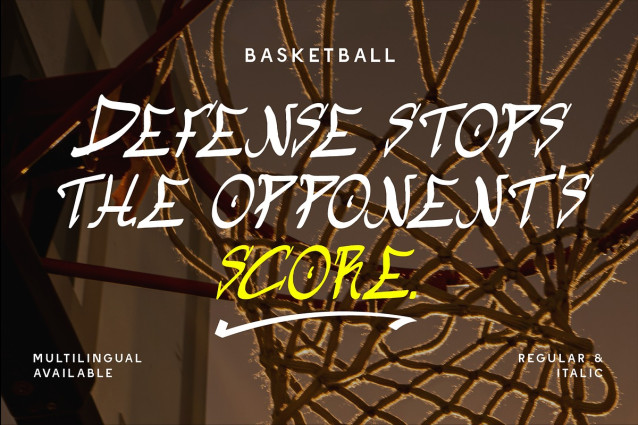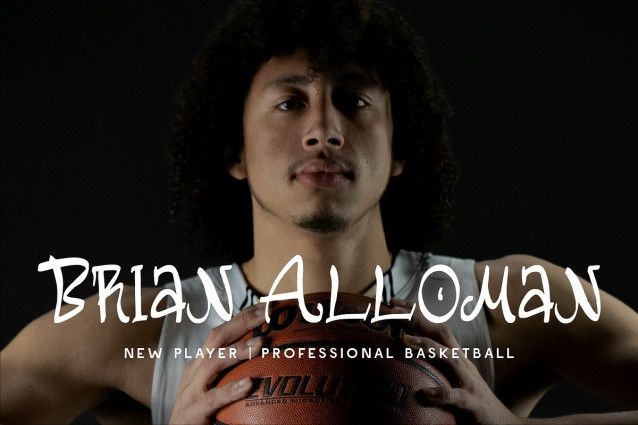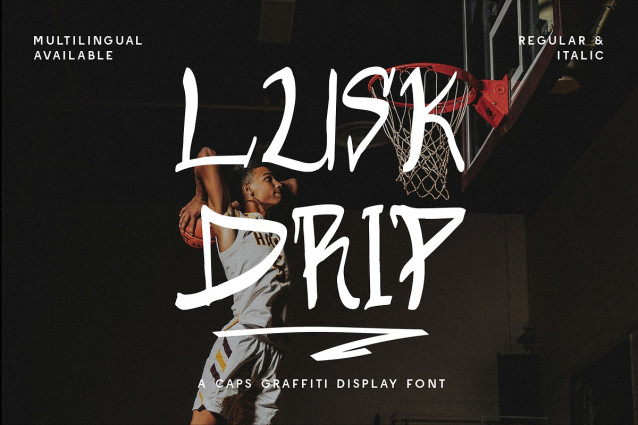
CF Lusk Drip Font
CF Lusk Drip Font a caps graffiti display font that oozes with confidence, movement, and attitude. Featuring sharp marker-style strokes, exaggerated forms, and raw drippy elements, this typeface captures the energy of urban sports, graffiti culture, and creative rebellion. From basketball posters and streetwear branding to music visuals, event flyers, and lifestyle merch, Lusk Drip dominates the scene with its bold letterforms and eye-catching presence. Available in Regular and Italic, and packed with multilingual support, it’s a slam dunk for any designer ready to flex.